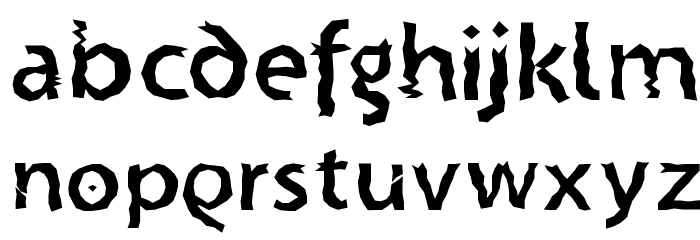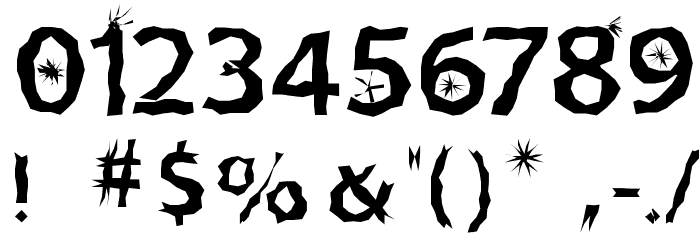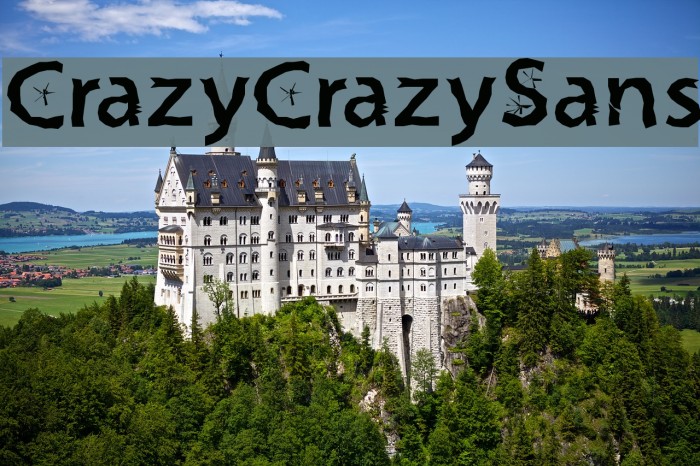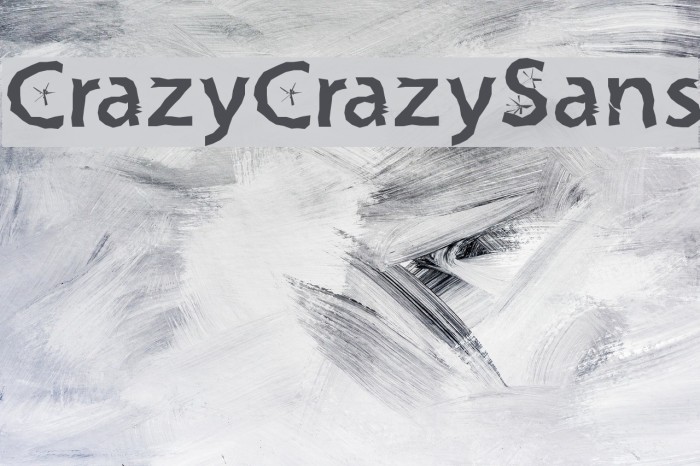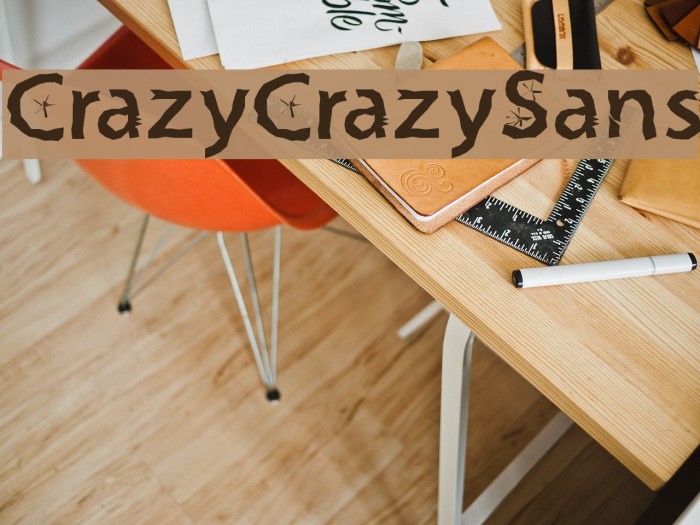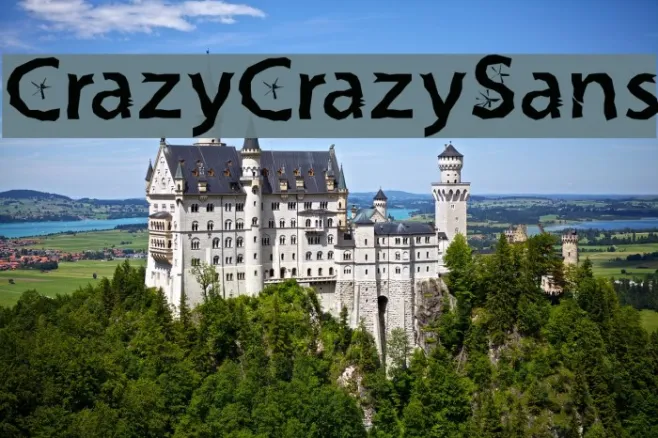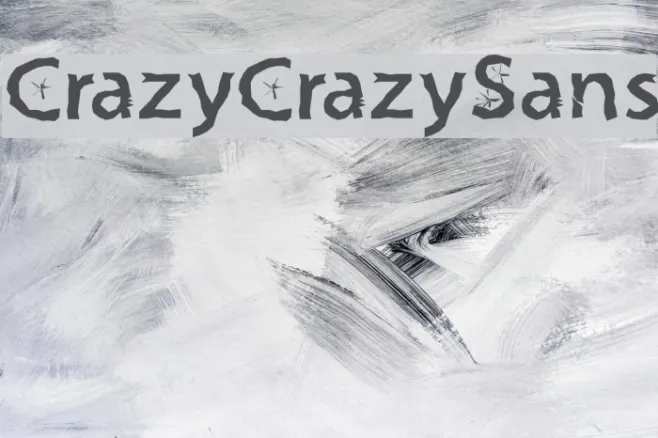
CrazyCrazySans Font
This font features a highly decorative and chaotic style, with jagged edges and irregular shapes that give it a wild, energetic appearance. The characters are adorned with star-like bursts and random cuts, adding to its dynamic and unpredictable nature. The uppercase and lowercase letters maintain a consistent level of eccentricity, making it ideal for projects that require a bold and unconventional look. The numbers and special characters continue this theme, ensuring a cohesive design throughout. This font is perfect for eye-catching headlines, posters, or any creative project that seeks to stand out with a unique and edgy aesthetic.
A chaotic, decorative font with jagged edges and star-like bursts.
- Proposed Projects: Ideal for posters, album covers, Halloween-themed designs, or any project needing a bold, unconventional look.
- Use Case: Headlines, Posters, Creative projects